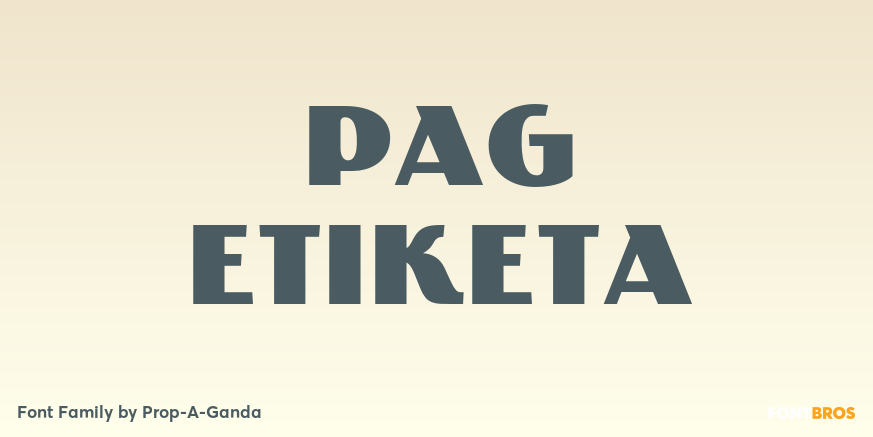
HomeFont BrosArt Deco (1910-1935)PAG Etiketa Art Deco (1910-1935)Sans Serif PAG Etiketa FacebookXPinterestWhatsApp 1 of 1 About PAG Etiketa Inspired by and based on retro propaganda posters, movie posters, shopfront lettering & advertisements in the early 20th century. This is perfect font for your retrostyle project.  DOWNLOAD ON FONT BROSThis font is sold and delivered by Font Bros. Font Canyon may earn a commission if you buy through this link. People also explored Happy Sunday Font Lemon Brush Font Brickrow Font Aquilaria Font Robert King Font Madena Parlling Font Just Saying Font Fredella Font Berdikari Font 289 0 TagsPAG Etiketa Font Previous articleCacaoNext articleGabriel Sans LEAVE A REPLY Cancel reply Comment: Please enter your comment! Name:* Please enter your name here Email:* You have entered an incorrect email address! Please enter your email address here Website: Save my name, email, and website in this browser for the next time I comment. Personal Use Free Mika Personal Use Free Read more about this font Millea Personal Use Free Read more about this font Carrolina Personal Use Free Read more about this font Cleopatra Font Personal Use Free Read more about this font BLOG Using Fonts in Digital Marketing: Tips to Strengthen Your Brand Identity In the realm of digital marketing, every visual element plays a crucial role in shaping a brand's identity, and fonts are no exception. The... Best Fonts for YouTube Videos: Make Your Thumbnails Stand Out Elegant Wedding Invitation Fonts – Handwritten & Script Fonts Best Fonts for T-Shirt Design – Top 2025 Picks